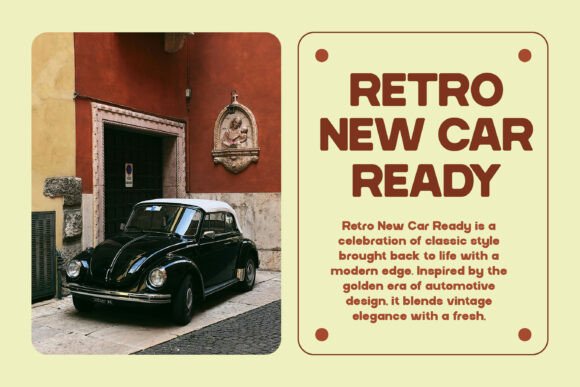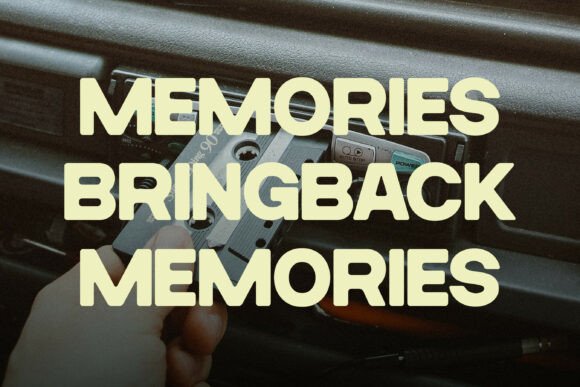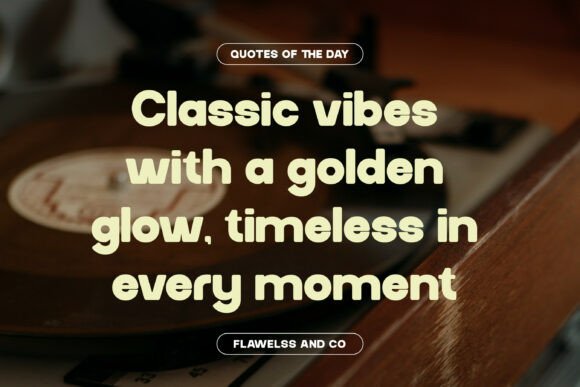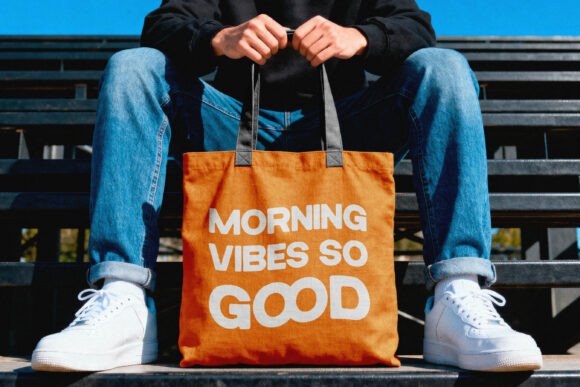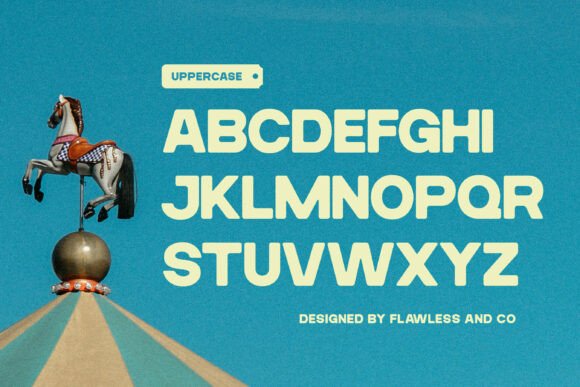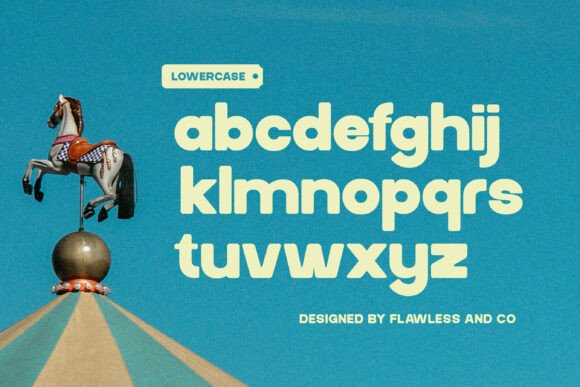
Introduction to Maison Cronne Font
Maison Cronne is a retro sans serif typeface designed to capture the warmth and charm of classic vintage aesthetics.
Featuring bold shapes, smooth curves, and nostalgic-inspired details, Maison Cronne delivers strong retro vibes while maintaining a clean modern appearance Its playful yet refined character makes it perfect for designs that want to feel timeless, expressive, and full of personality.
Key Features of Maison Cronne Font